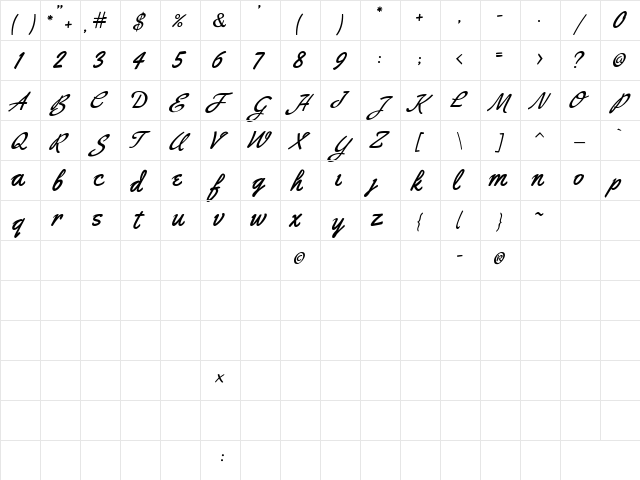
Durango Regular
Design Context for Durango Typeface
Durango is a composed and adaptable typeface that performs quietly and consistently across a wide range of design contexts.